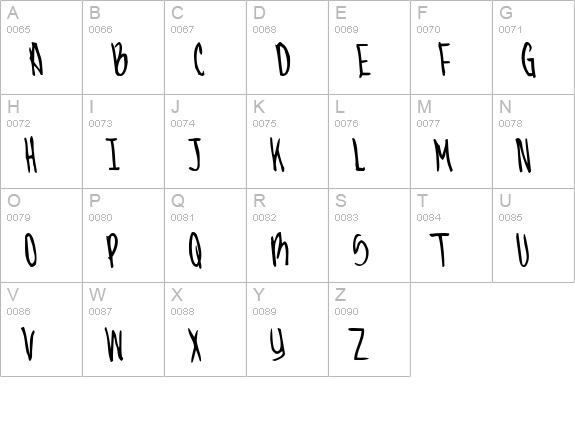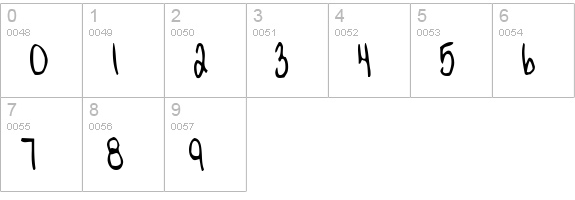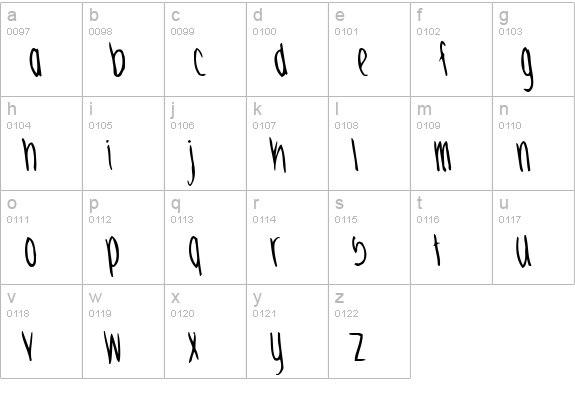
JennaBold Font Details
Introducing JennaBold font, a modern and stylish typeface that exudes confidence and sophistication. With its bold and striking design, JennaBold is perfect for making a statement in any project. This versatile font is ideal for headlines, logos, posters, and more. What's even better is that JennaBold is available for free download at FontsMarket.com. So you can elevate your designs without breaking the bank. Don't miss out on this opportunity to add a touch of boldness to your creative projects with JennaBold. Download it today and make your designs stand out from the crowd!